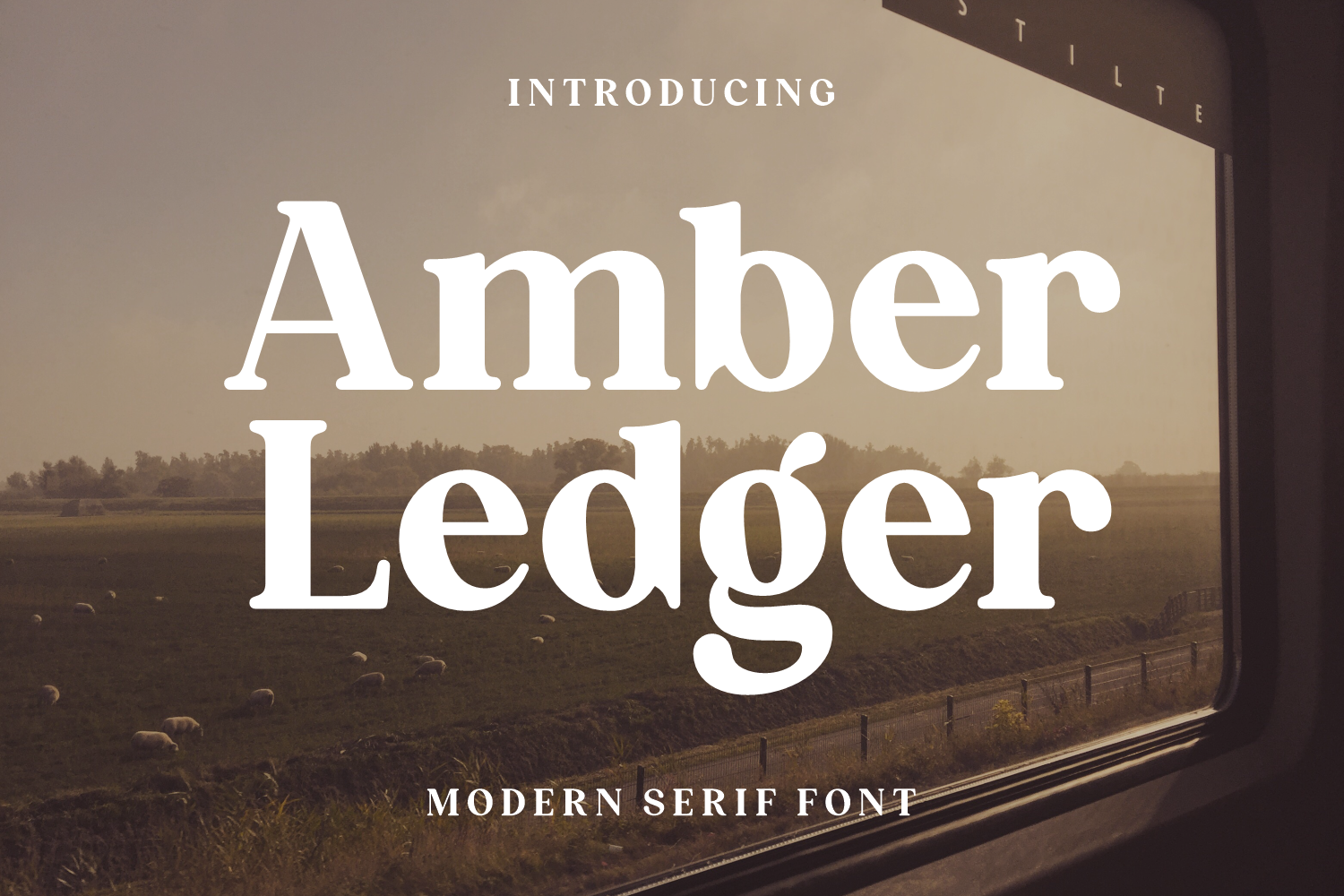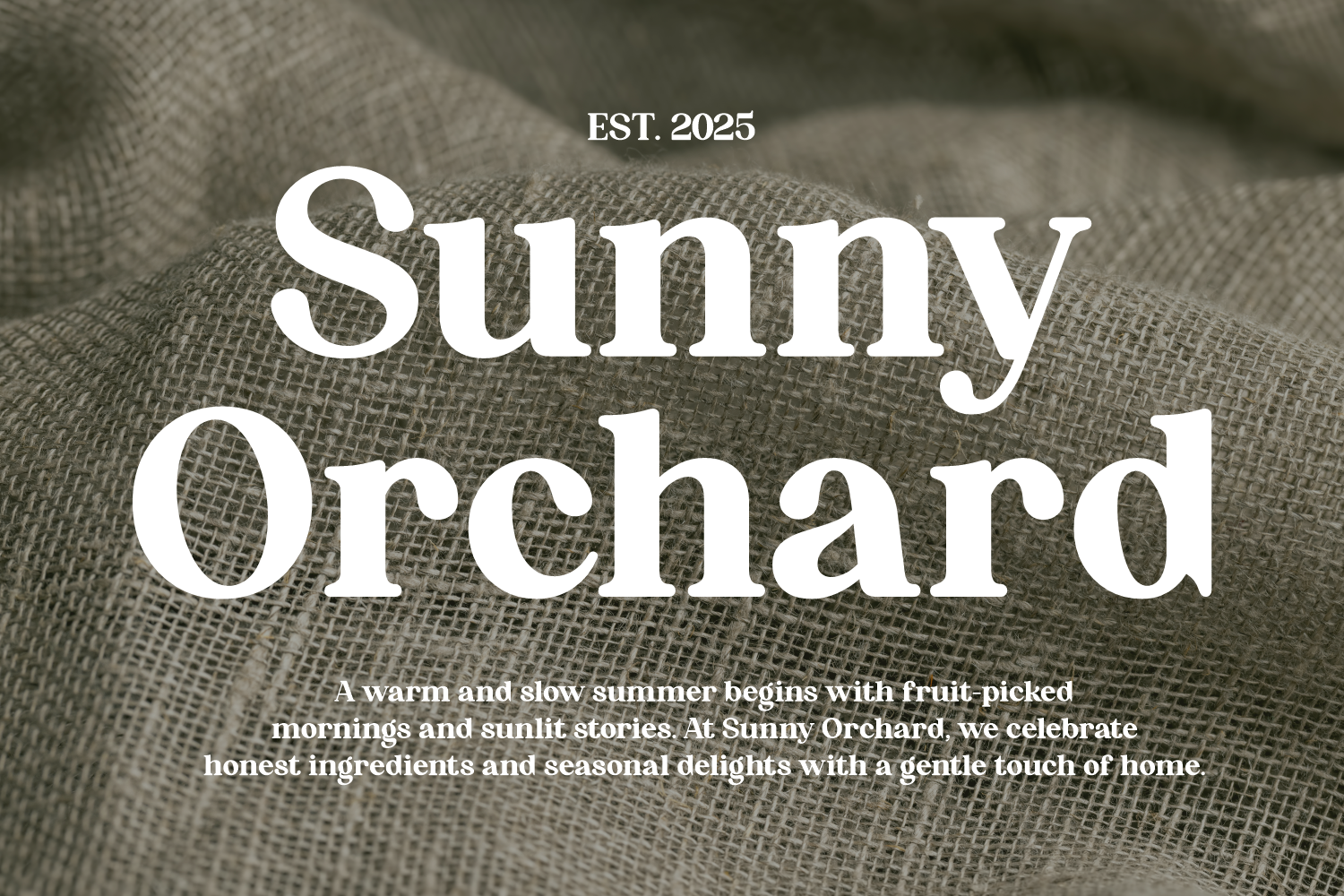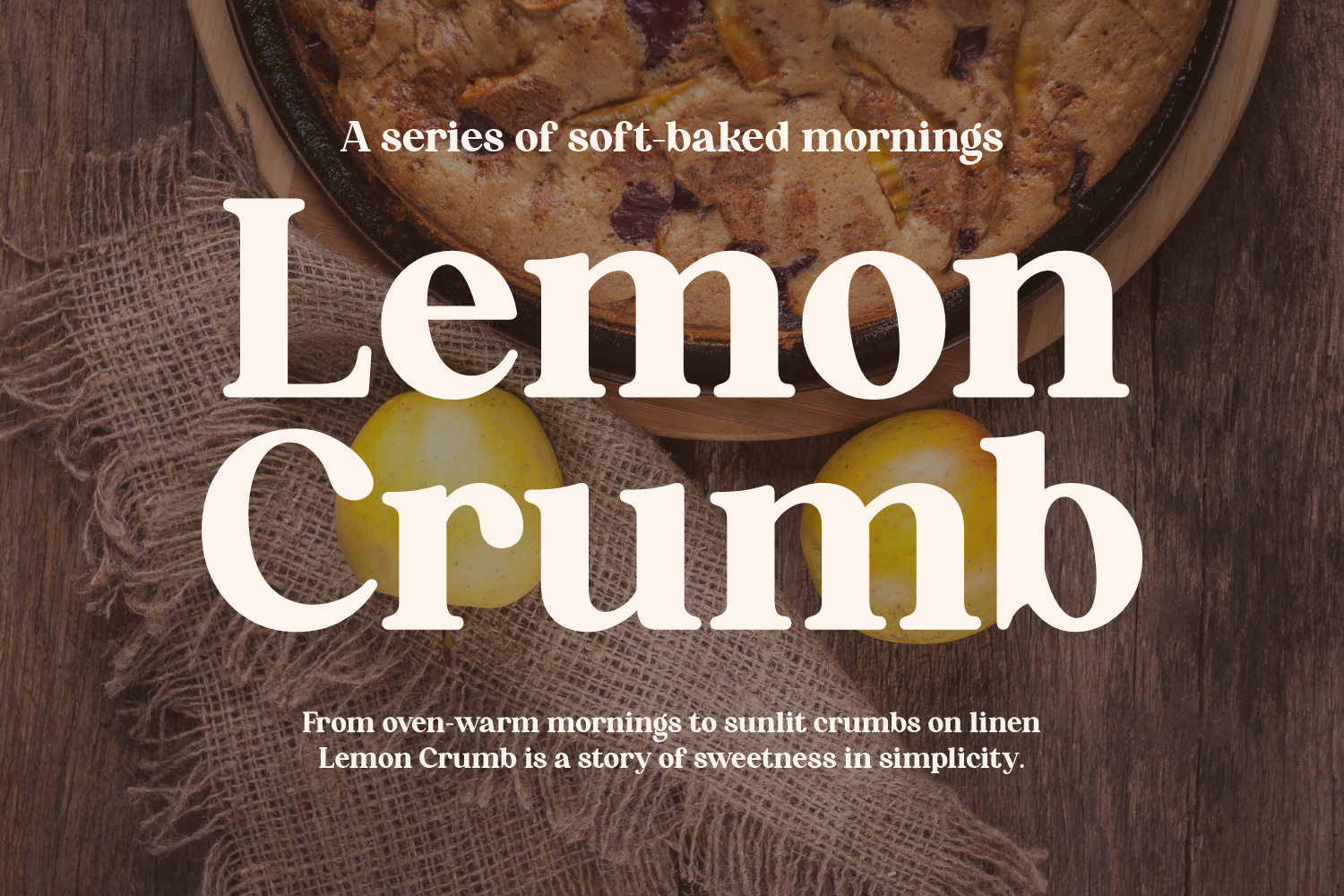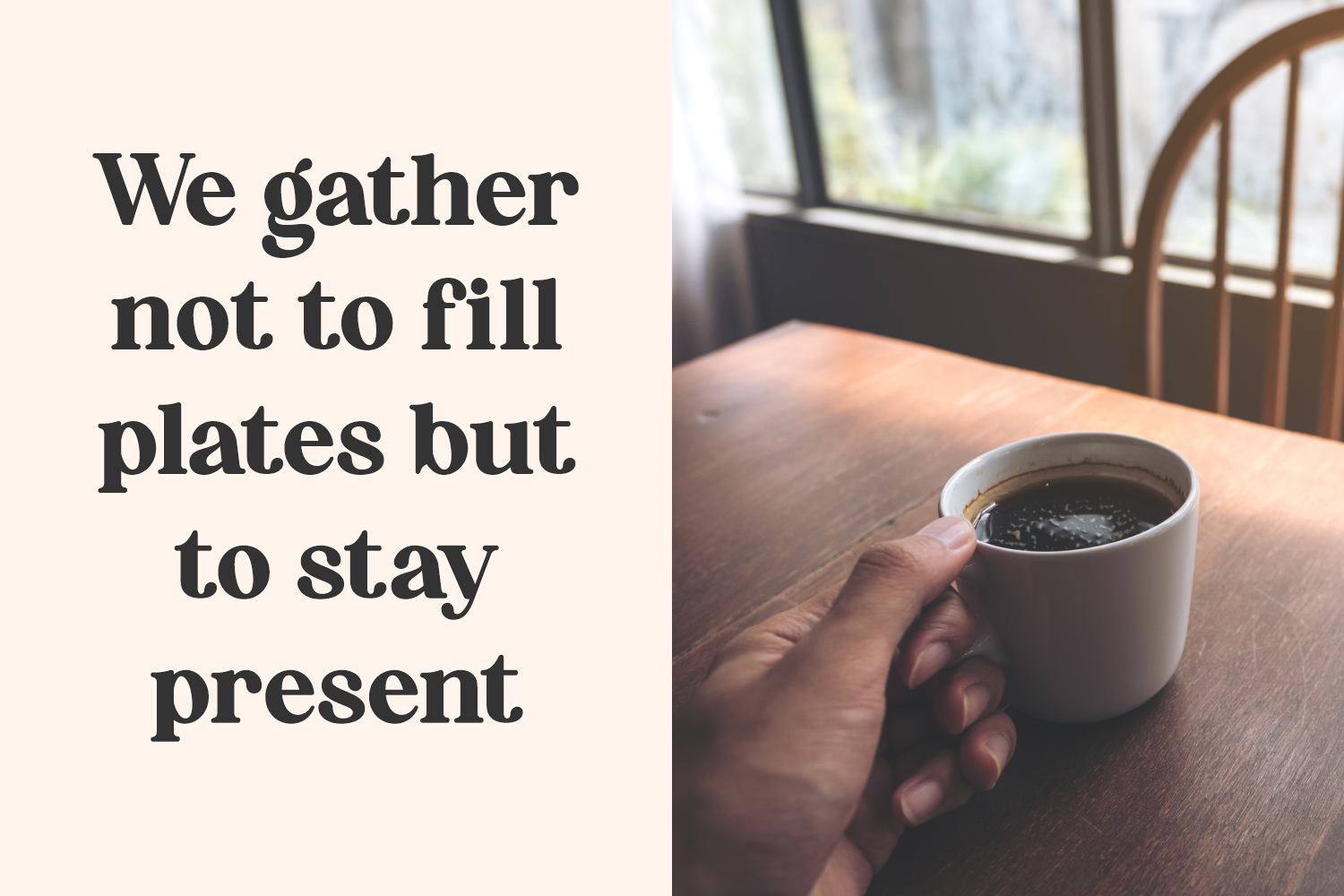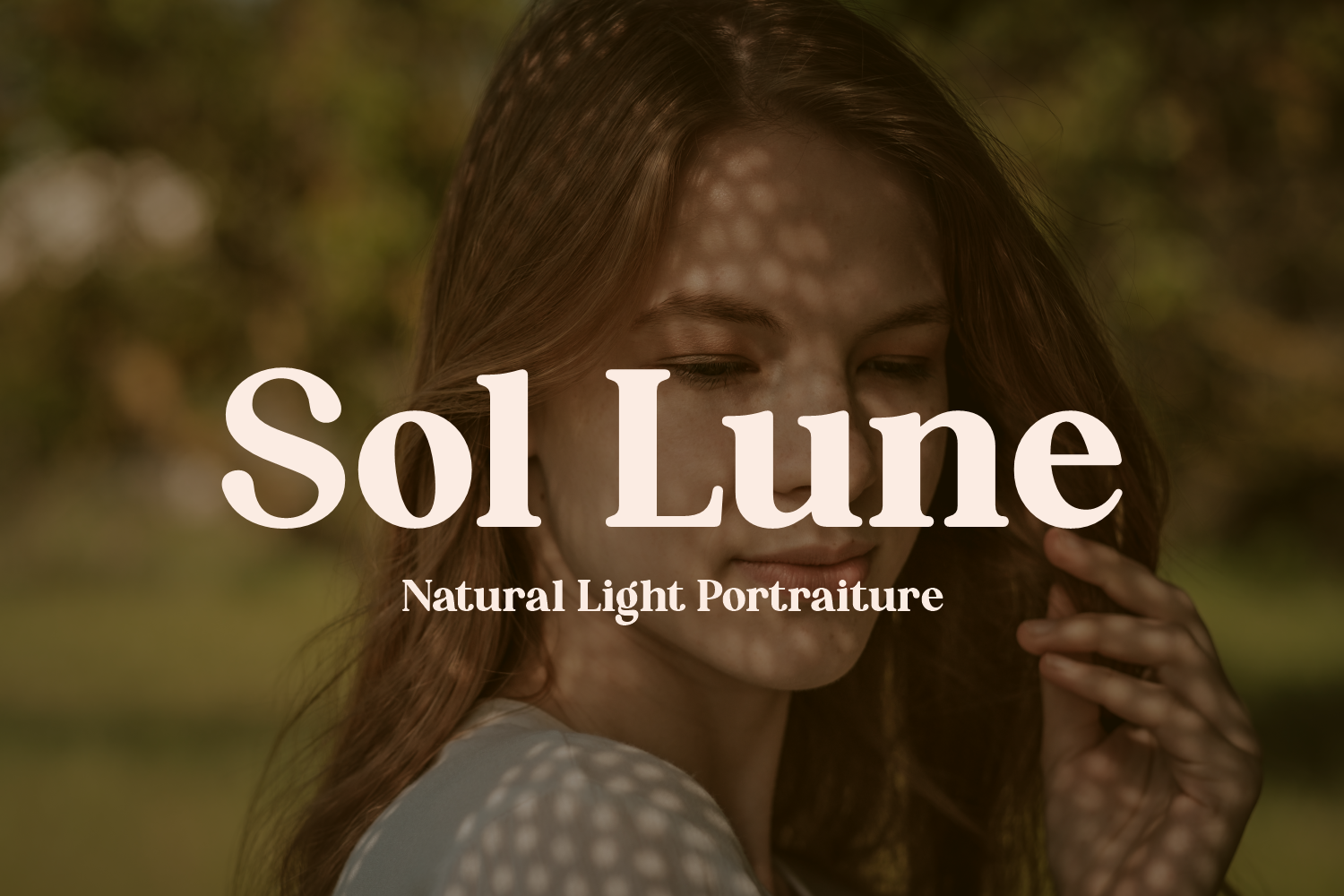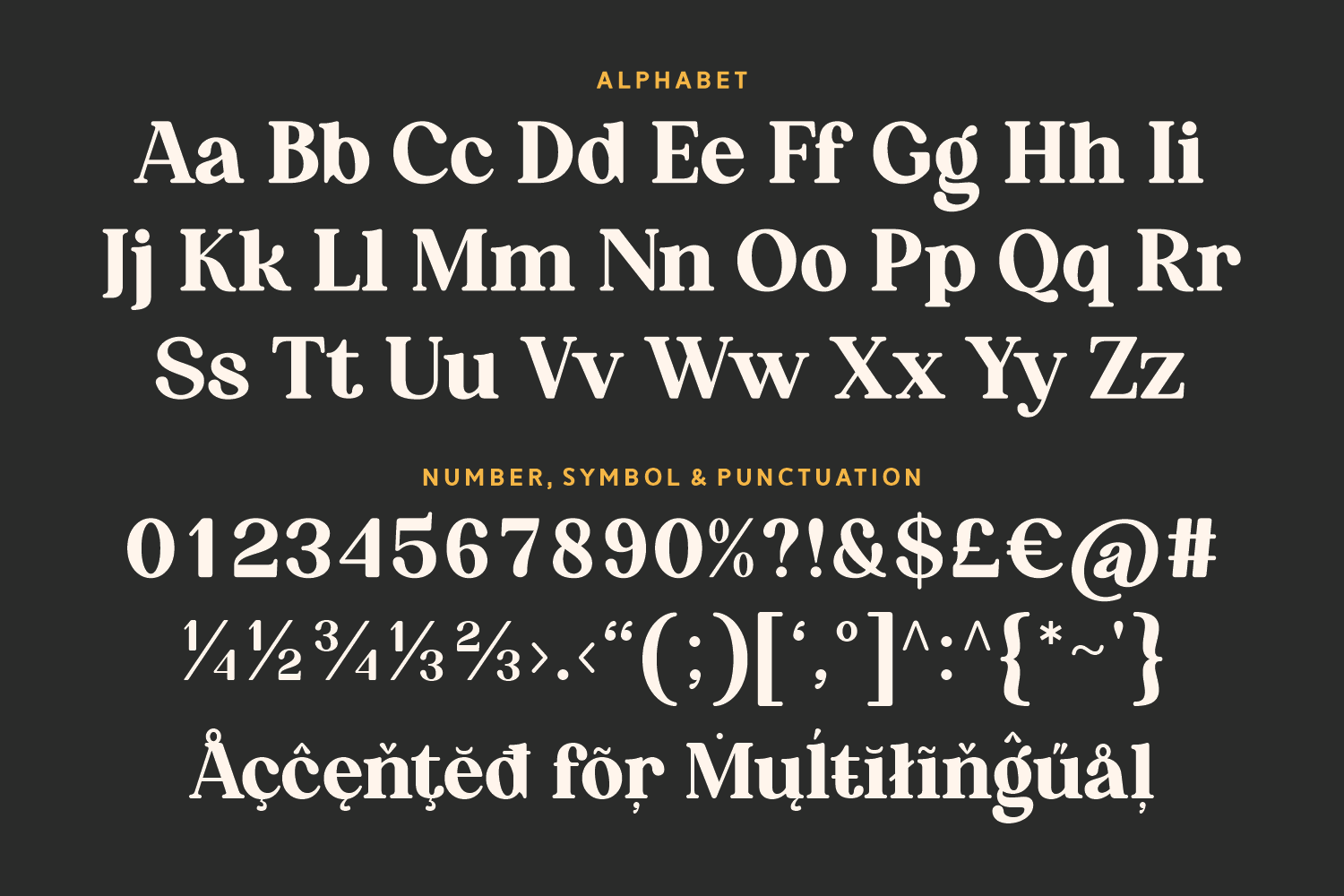
Amber Ledger is a warm and inviting modern serif font that evokes a sense of nostalgia, comfort, and handcrafted charm. With a timeless appeal and strong legibility, Amber Ledger beautifully balances rustic authenticity with modern refinement—ideal for everything from slow-living blogs to boutique branding.